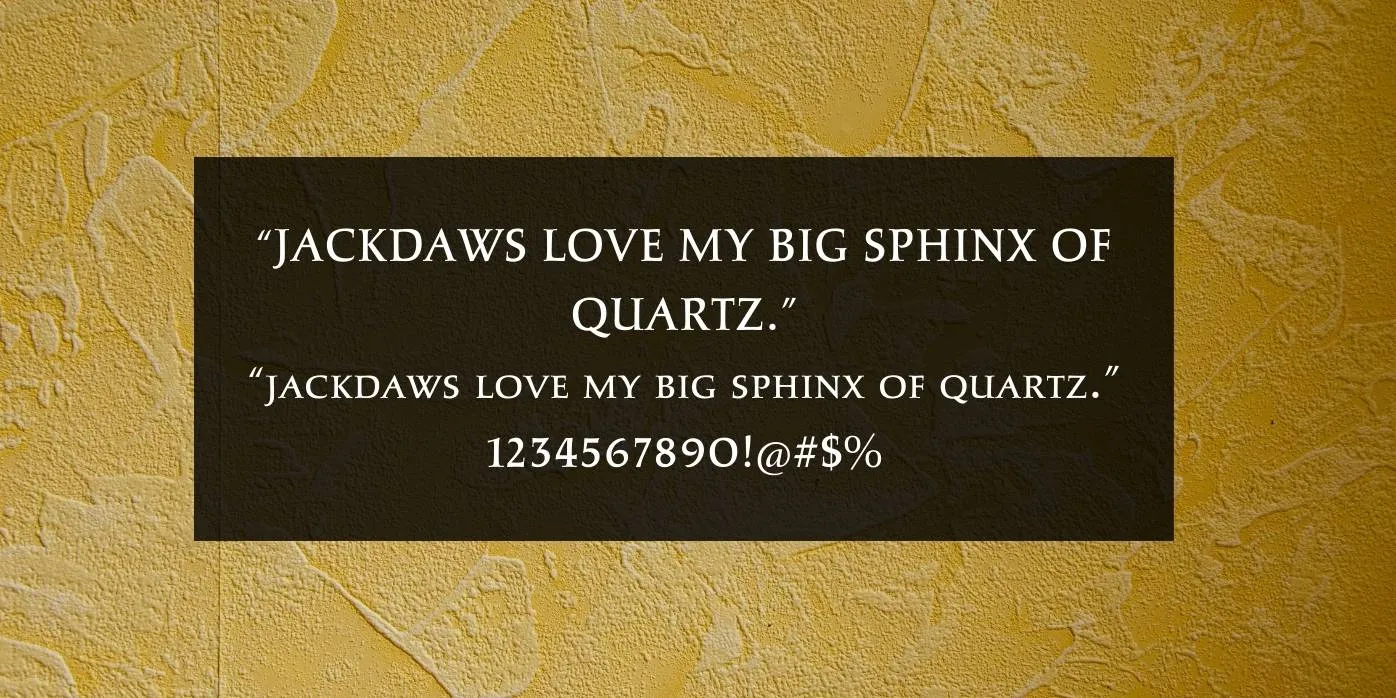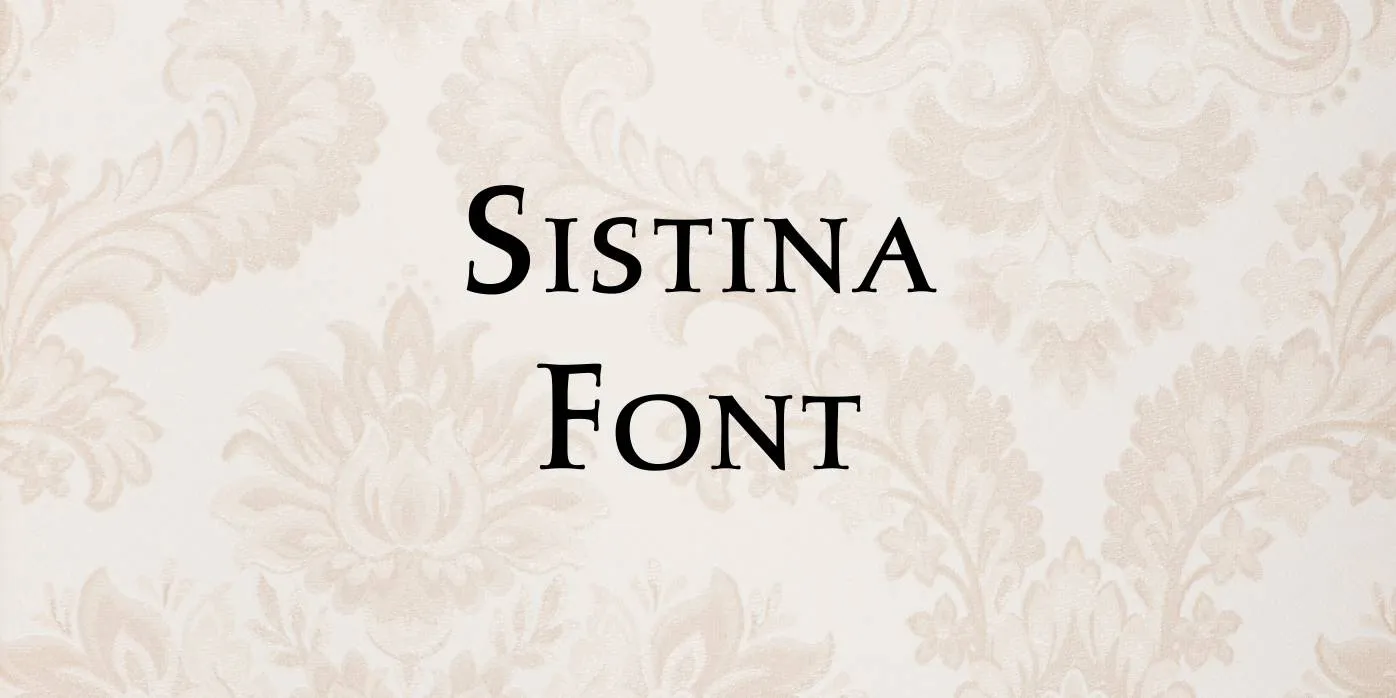
Sistina Font
Today, we are consulting on Sistina Font which belongs to the serif family. This stunning typeface was designed by URW Type Foundry.  This awesome font is the perfect choice for any display and text use. This stunning typeface includes  Latin, Cyrillic, and Greek character sets. This tremendous font family contains 6 weights: Light, Regular, Book, Medium, Bold, and Black.
Each weight includes a roman and italic version, resulting in a total of 12 fonts. The lightest weight is perfect for large headlines or display use, while the heaviest weight can be used for body text or small sections of text. It is not included on google fonts but you can download it from our website. Sistina Typeface was designed with readability in mind.
The tall x-height and wide proportions make it easy to read at any size. The clean lines and sharp edges give it a modern look that will never go out of style. Its generator tool is suitable for different designs.